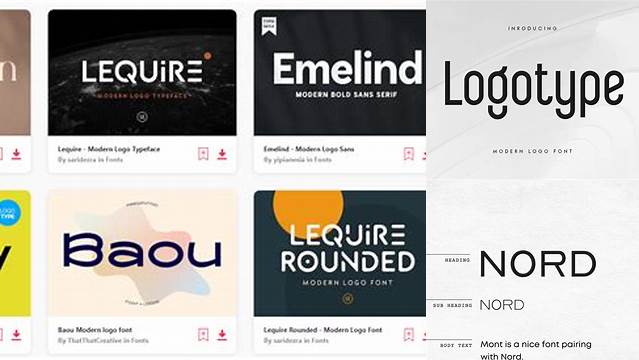
Modern & Simple Fonts For Logos: A Designer's Guide
Are you on the hunt for the perfect font to elevate your logo and brand identity? You've landed in the right spot! In today's design landscape, simplicity and modernity reign supreme. A clean, contemporary font can speak volumes, conveying professionalism, sophistication, and a forward-thinking approach. This guide dives deep into the world of simple modern fonts, offering insights, examples, and tips to help you choose the ideal typeface for your logo.
Understanding the Power of Simple Modern Fonts
When it comes to logo design, the font you select is more than just a visual element; it's a cornerstone of your brand's identity. Think of it as the voice of your brand β it communicates your values, personality, and overall message. Simple modern fonts are particularly effective because they cut through the noise and speak directly to your audience. These fonts are characterized by their clean lines, minimal ornamentation, and strong geometric forms. They exude a sense of clarity and confidence, making them a popular choice for businesses aiming to project a contemporary image. The beauty of these fonts lies in their versatility. They work wonders across various industries, from tech startups and creative agencies to financial institutions and healthcare providers. Whether you're aiming for a minimalist aesthetic or something slightly more expressive, there's a simple modern font out there to match your vision. This versatility also extends to different applications. A well-chosen simple modern font will look equally stunning on your website, business cards, social media graphics, and other marketing materials. It ensures consistency across all your brand touchpoints, which is crucial for building brand recognition and trust. Choosing the right font involves considering several factors, such as your brand's personality, target audience, and the overall message you want to convey. For example, a tech company might lean towards a sleek, sans-serif font to convey innovation and cutting-edge technology, while a wellness brand might opt for a softer, more rounded sans-serif to evoke feelings of calm and serenity. Ultimately, the goal is to find a font that not only looks visually appealing but also resonates with your brand's core values and target audience. Itβs about creating a visual language that speaks to your customers on an emotional level, making your brand memorable and impactful. In the following sections, we'll explore specific font categories and examples to inspire your logo design journey.
Key Characteristics of Simple Modern Fonts
Before we dive into specific font examples, let's break down the defining characteristics of simple modern fonts. Understanding these attributes will empower you to make informed decisions and select a typeface that aligns perfectly with your brand's aesthetic. First and foremost, clean lines and geometric shapes are the hallmark of simple modern fonts. These fonts prioritize clarity and legibility, often featuring straight lines, sharp angles, and well-defined curves. This minimalist approach eliminates unnecessary visual clutter, allowing the core message of your logo to shine through. Think of fonts like Futura, which is renowned for its perfect geometric forms, or Montserrat, which combines geometric precision with a touch of warmth. Another crucial aspect is minimal ornamentation. Simple modern fonts avoid excessive serifs, flourishes, or decorative elements. They embrace a stripped-down approach, focusing on the essential forms of the letters. This doesn't mean they're boring, though! The beauty lies in the subtle nuances of the letterforms themselves. The spacing between letters, the weight of the strokes, and the overall balance all contribute to the font's unique personality. Legibility is paramount in simple modern fonts. After all, a logo is useless if it can't be easily read and understood. These fonts are designed with readability in mind, ensuring that your brand name stands out and is easily recognizable, even at small sizes. This is particularly important for logos that will be used across various platforms, from websites and social media to business cards and signage. The best simple modern fonts strike a balance between visual appeal and practical functionality. The versatility of simple modern fonts is another key advantage. They can adapt to a wide range of industries and applications, making them a reliable choice for diverse branding needs. Whether you're designing a logo for a tech startup, a fashion brand, or a non-profit organization, a simple modern font can convey the right message. They're equally at home in both digital and print environments, ensuring consistency across all your marketing materials. Neutrality is often a desirable trait in simple modern fonts. They aim to be timeless and avoid fleeting trends. This neutrality allows your brand's message to take center stage, rather than the font itself becoming the focal point. This doesn't mean they lack personality, but rather that their personality is understated and refined. In essence, simple modern fonts are the epitome of less is more. They prioritize clarity, legibility, and versatility, making them a powerful tool for crafting memorable and impactful logos. By understanding these characteristics, you can confidently navigate the world of typography and choose a font that truly represents your brand. Now, let's explore some specific font categories and examples that embody these qualities.
Top Simple Modern Font Categories for Logos
Now that we've established the key characteristics of simple modern fonts, let's explore the primary categories that fall under this umbrella. Each category offers a distinct flavor and visual impact, allowing you to fine-tune your logo's message and aesthetic. Sans-serif fonts are arguably the most popular choice for modern logo design. They are characterized by the absence of serifs, the small decorative strokes at the ends of letterforms. This gives them a clean, minimalist appearance that exudes a sense of contemporary sophistication. Within the sans-serif category, there's a vast range of styles to choose from, from geometric and futuristic to humanist and organic. Some popular sans-serif fonts for logos include Helvetica, Arial, Futura, Montserrat, and Open Sans. Helvetica is a classic choice, known for its neutrality and versatility. It's a safe bet for brands seeking a timeless and professional look. Arial is a widely used alternative to Helvetica, offering similar qualities at a lower cost. Futura, with its strong geometric forms, is ideal for brands that want to project a sense of innovation and precision. Montserrat balances geometric precision with a touch of warmth, making it a versatile choice for a variety of industries. Open Sans is a humanist sans-serif that is highly legible and approachable, perfect for brands that want to convey a friendly and open personality. Geometric sans-serif fonts are a subset of sans-serifs that emphasize geometric shapes and forms. These fonts often feature perfectly circular Os, straight lines, and sharp angles, creating a visually striking and modern aesthetic. They're a great choice for brands that want to convey a sense of innovation, technology, and precision. Examples of geometric sans-serif fonts include Futura, Avant Garde, and Avenir. These fonts are often used in logos for tech companies, design agencies, and other businesses that want to project a cutting-edge image. Humanist sans-serif fonts offer a softer and more approachable alternative to geometric sans-serifs. They incorporate subtle variations in stroke weight and letterform, giving them a more natural and organic feel. These fonts are a great choice for brands that want to convey warmth, friendliness, and approachability. Examples of humanist sans-serif fonts include Open Sans, Lato, and Roboto. These fonts are often used in logos for healthcare providers, non-profit organizations, and other businesses that want to connect with their audience on an emotional level. Serif fonts may not be the first choice that comes to mind when you think of modern logos, but they can be used effectively in certain contexts. Serif fonts are characterized by the presence of serifs, which can add a touch of elegance and tradition to a logo. However, it's crucial to choose a serif font that feels contemporary and not overly ornate. Modern serif fonts often feature clean lines and minimal serifs, making them a sophisticated choice for brands that want to convey a sense of history and authority while still maintaining a modern aesthetic. Examples of modern serif fonts include Playfair Display, Merriweather, and Lora. These fonts are often used in logos for luxury brands, publishing houses, and other businesses that want to project an image of sophistication and refinement. By understanding the nuances of these different font categories, you can make a more informed decision about which style best suits your brand's personality and message. In the next section, we'll explore specific font examples within each category to provide you with even more inspiration for your logo design project.
Simple Modern Font Examples to Inspire Your Logo Design
Now for the exciting part! Let's delve into specific examples of simple modern fonts that can breathe life into your logo design. We'll cover a range of styles within each category, providing you with a diverse palette to choose from. Remember, the best font for your logo will depend on your brand's unique personality, target audience, and overall message. So, explore these options with an open mind and consider how each font resonates with your brand's identity. Sans-serif fonts: Helvetica: A timeless classic, Helvetica is renowned for its neutrality and versatility. It's a safe and reliable choice for brands seeking a professional and understated look. Its clean lines and even spacing make it highly legible across various applications. Arial: A widely used alternative to Helvetica, Arial offers similar qualities at a lower cost. It's a great option for brands seeking a clean and professional sans-serif without breaking the bank. Futura: With its strong geometric forms, Futura exudes a sense of innovation and precision. It's a popular choice for tech companies, design agencies, and other businesses that want to project a cutting-edge image. Montserrat: Montserrat strikes a perfect balance between geometric precision and warmth. Its slightly rounded letterforms give it a more approachable feel than some other geometric sans-serifs, making it a versatile choice for various industries. Open Sans: A humanist sans-serif, Open Sans is highly legible and approachable. Its open letterforms and friendly appearance make it a great choice for brands that want to convey a sense of warmth and approachability. Lato: Lato is another excellent humanist sans-serif option. It's slightly more condensed than Open Sans, making it a good choice for logos where space is limited. Roboto: Roboto is a modern and versatile sans-serif that's widely used on Android devices. Its clean lines and strong personality make it a popular choice for both digital and print applications. Geometric sans-serif fonts: Avant Garde: Avant Garde is a visually striking geometric sans-serif known for its sharp angles and strong personality. It's a great choice for brands that want to make a bold statement. Avenir: Avenir is a more refined and elegant geometric sans-serif than Avant Garde. Its clean lines and subtle curves make it a versatile choice for a wide range of applications. Humanist sans-serif fonts: Calibri: Calibri is a popular humanist sans-serif that's often used as a default font in Microsoft Office. Its soft curves and rounded terminals give it a friendly and approachable feel. Modern serif fonts: Playfair Display: Playfair Display is a beautiful and elegant serif font that's perfect for headlines and logos. Its high contrast and delicate serifs give it a sophisticated and luxurious feel. Merriweather: Merriweather is a highly legible serif font that's designed for on-screen reading. Its sturdy letterforms and moderate contrast make it a great choice for body text and logos alike. Lora: Lora is a well-balanced serif font with roots in calligraphy. Its contemporary feel makes it a good choice for logos that need a touch of elegance without feeling overly traditional. These examples are just a starting point, of course. The world of typography is vast and ever-evolving, so don't be afraid to explore other options and experiment with different combinations. Remember to consider your brand's personality, target audience, and the overall message you want to convey when making your final decision.
Tips for Choosing the Right Simple Modern Font for Your Logo
Selecting the perfect simple modern font for your logo is a critical decision that can significantly impact your brand's perception. To help you navigate this process effectively, here are some essential tips to keep in mind. First, understand your brand's personality. What are the core values and characteristics you want to convey? Are you aiming for a professional and sophisticated look, or something more playful and approachable? The font you choose should be a reflection of your brand's identity. For instance, if your brand is all about innovation and cutting-edge technology, a geometric sans-serif like Futura or Avant Garde might be a great fit. On the other hand, if you want to convey warmth and approachability, a humanist sans-serif like Open Sans or Lato might be more suitable. Consider your target audience. Who are you trying to reach with your brand? Understanding your target audience's preferences and expectations can help you narrow down your font choices. For example, if your target audience is primarily young and tech-savvy, a modern and minimalist font might resonate well. If you're targeting a more traditional audience, a clean and legible serif font could be a better option. Think about legibility. A logo is useless if it can't be easily read and understood. Prioritize legibility when choosing a font, especially for logos that will be used at small sizes. Avoid overly stylized or decorative fonts that can be difficult to decipher. Test your font choices in different sizes and contexts to ensure they remain legible. Pay attention to font pairing. In some cases, you might want to use two different fonts in your logo β one for the main brand name and another for a tagline or descriptor. If you choose to do this, it's crucial to select fonts that complement each other. A general rule of thumb is to pair a sans-serif font with a serif font or to use fonts from different weight variations within the same font family. Consider the font's scalability. Your logo will likely be used across various platforms and formats, from websites and social media to business cards and signage. Make sure the font you choose scales well and remains legible at different sizes. Avoid fonts with overly thin lines or intricate details that may become lost when scaled down. Don't be afraid to experiment. Trying out different font options is part of the design process. Don't settle for the first font you see. Explore various styles and combinations to find the perfect fit for your brand. You can use online font resources and design tools to test out different fonts and see how they look in your logo design. Get feedback from others. Once you've narrowed down your font choices, get feedback from colleagues, friends, or potential customers. Fresh perspectives can help you identify any potential issues or blind spots and ensure that your logo resonates with your target audience. Think about the long term. Choose a font that will stand the test of time. Avoid trendy fonts that may look dated in a few years. Opt for classic and versatile fonts that will continue to represent your brand effectively in the long run. Choosing the right font for your logo is an investment in your brand's future. By following these tips and taking the time to explore different options, you can create a logo that not only looks great but also effectively communicates your brand's message and personality.
Conclusion: Crafting a Lasting Impression with Simple Modern Fonts
In conclusion, the world of simple modern fonts offers a treasure trove of options for crafting logos that are both visually appealing and strategically effective. By understanding the key characteristics of these fonts, exploring different categories, and following our tips for selection, you can confidently choose a typeface that elevates your brand and leaves a lasting impression. Remember, a well-chosen font is more than just a visual element; it's a powerful tool for communicating your brand's personality, values, and overall message. So, take the time to explore the options, experiment with different styles, and find a font that truly speaks to your brand's identity. Whether you opt for a classic sans-serif like Helvetica, a geometric powerhouse like Futura, or a more approachable humanist font like Open Sans, the key is to choose a font that embodies your brand's essence and resonates with your target audience. By prioritizing clarity, legibility, and versatility, you can create a logo that not only looks stunning but also effectively communicates your brand's message and helps you stand out in a crowded marketplace. So, go forth and unleash the power of simple modern fonts to create a logo that truly represents your brand and sets you up for success! Happy designing, guys!